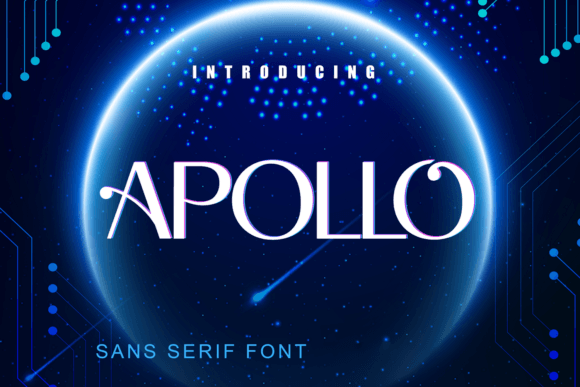
Discover the Timeless Elegance of Apollo Font
Have you ever found yourself in the midst of a creative block, staring at a blank page or screen, searching for that one element to bring your vision to life? For many designers, the right font can be the key to unlocking that elusive spark. It’s a moment of clarity, a burst of inspiration that propels your project forward.
Enter the Apollo Font, a minimal and neat sans serif font that effortlessly elevates your designs to new heights. With its versatility and clean lines, it’s the perfect companion for a wide range of projects, from sleek digital interfaces to elegant print materials.
As a designer, you know the value of a well-chosen font. It’s not just about aesthetics; it’s about communicating your message, setting the tone, and creating an emotional connection with your audience. That’s where the Apollo Font comes in – a trusted ally that will help you craft designs that truly shine.
Apollo Font Key Features
- Unique Characteristics: The font features a unique blend of modern and classic elements, making it perfect for both contemporary and traditional designs.
- Kerning and Ligatures: The font includes advanced kerning and ligature features, ensuring that text is rendered with precision and elegance, even in complex layouts.
Apollo Font Review
As a designer, I’ve had the chance to work with the Apollo Font, and I must say it’s been a mixed bag for me.
- The Apollo Font has a sleek and modern aesthetic that’s perfect for contemporary designs.
- Its clean lines and minimalistic feel make it ideal for corporate branding and UI/UX projects.
- The font is highly customizable, with a wide range of weights and styles to choose from.
- Apollo Font is also quite versatile and can be used for a variety of projects, from logos to body text.
- The font may feel a bit too sterile or generic for projects that require a more emotional or creative tone.
- The Apollo Font’s thin lines can sometimes make it difficult to read at smaller font sizes.
- The font’s versatility can also be a double-edged sword – it may lack the unique character that some other fonts possess.
Overall, the Apollo Font is a solid choice for designers who want a modern, clean, and highly customizable font. However, it may not be the best fit for projects that require a more creative or emotional tone.
For best results, use Apollo Font in headings and titles to create a visually appealing design.
Use Apollo Font to create elegant and modern typography in your designs.
Use Apollo Font to create professional and polished presentations and documents.
Apollo Font is ideal for:
Creating elegant and modern typography
Designing business cards and letterheads
Developing branding materials and logos
Adding a touch of sophistication to presentations and documents
Alternatives to Apollo Font
The Inter Font is a modern sans-serif font designed by Rasmus Andersson. It is known for its clean lines and minimal ornamentation. Use Inter Font for digital products, web applications, and any project that requires a clean and professional look.
Inter Font is a more modern and minimalist alternative to Apollo Font. It has a similar feel but with a more contemporary aesthetic.
The Montserrat Font is a sans-serif font designed by Julieta Ulanovsky. It is inspired by the urban typography of the Montserrat neighborhood in Buenos Aires. Use Montserrat Font for projects that require a strong, urban feel.